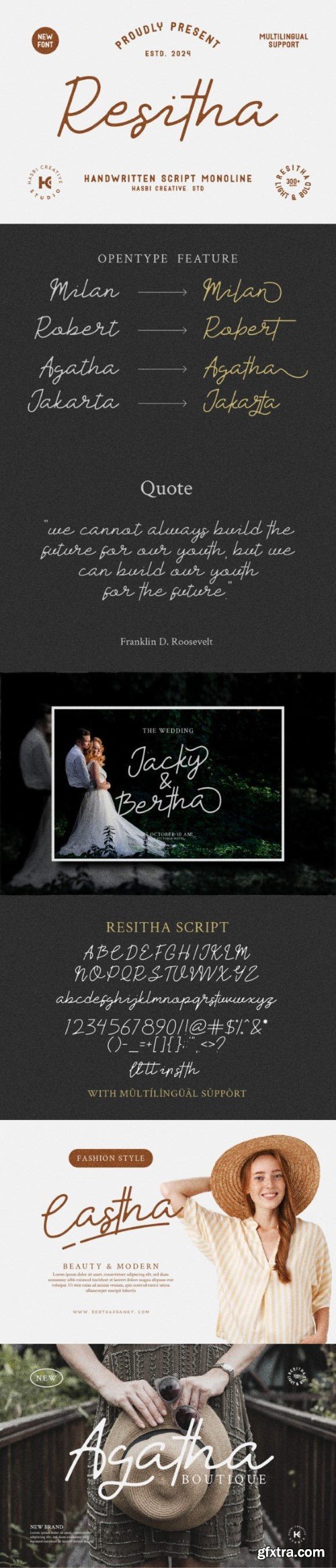
瑞诗塔字体
Resitha Font
Presenting Resitha – Script Monoline, a monoline script typeface that is ideal for infusing your designs with a sense of refinement and grace. Boasting seamless strokes and intricate contours, Resitha – Script Monoline is an excellent choice for crafting logos, establishing brand identities, designing exquisite wedding invitations, creating captivating social media posts, and much more.